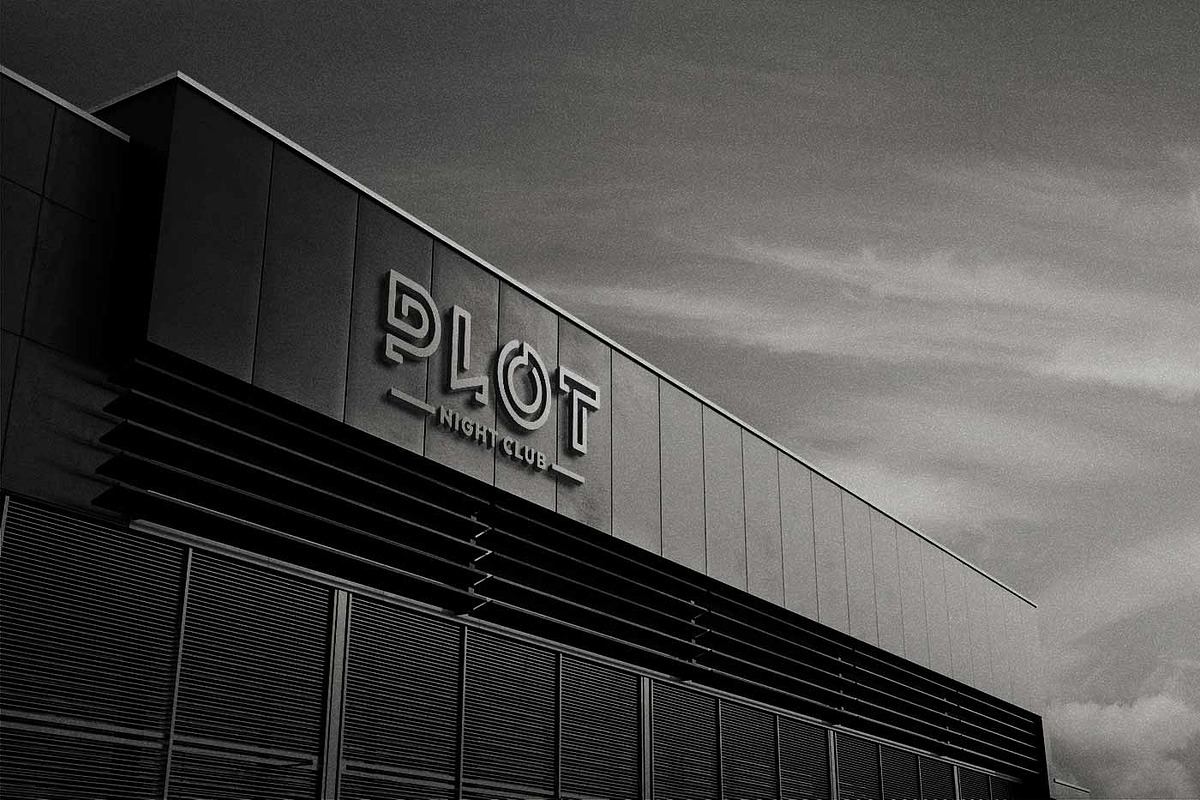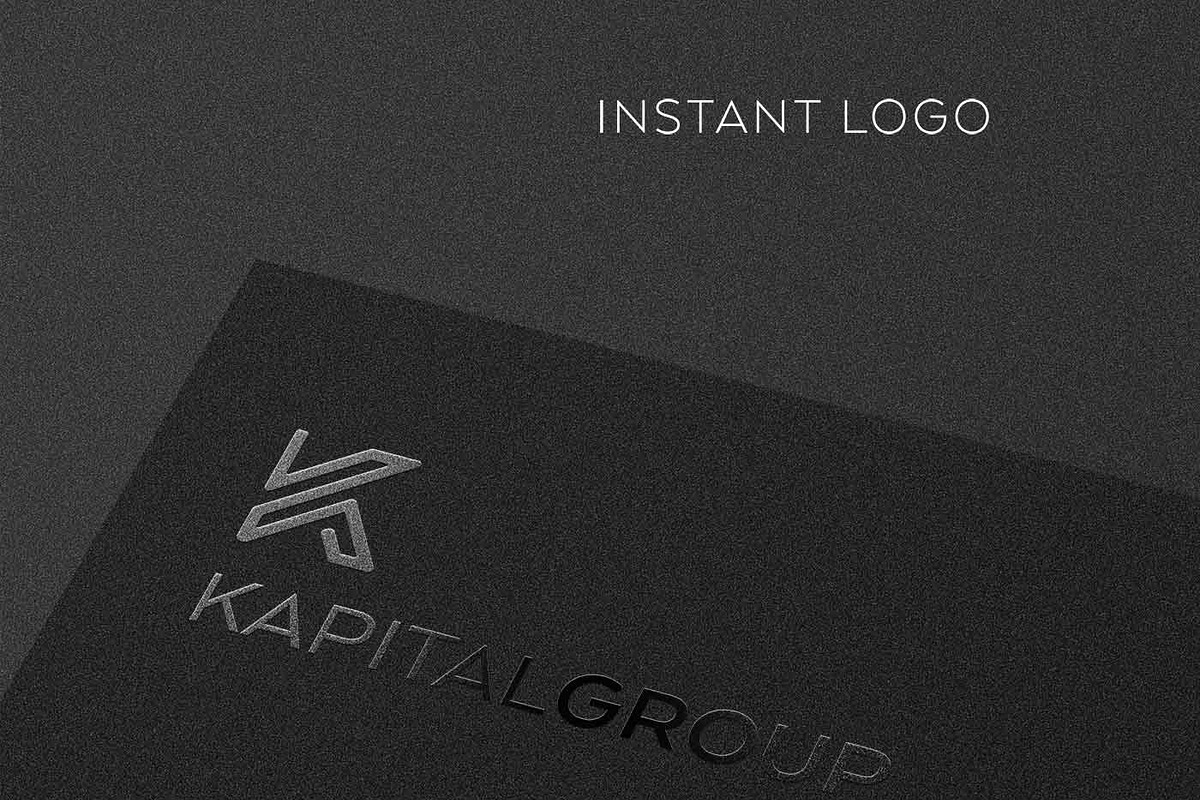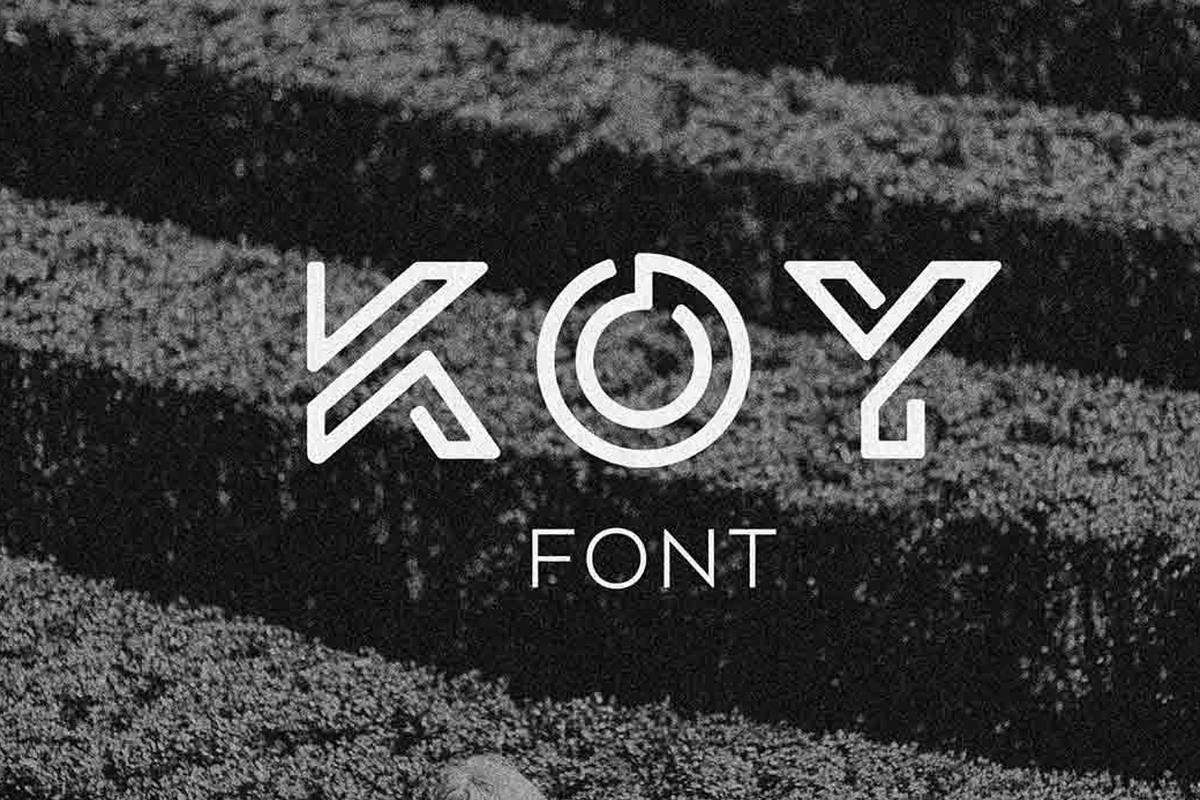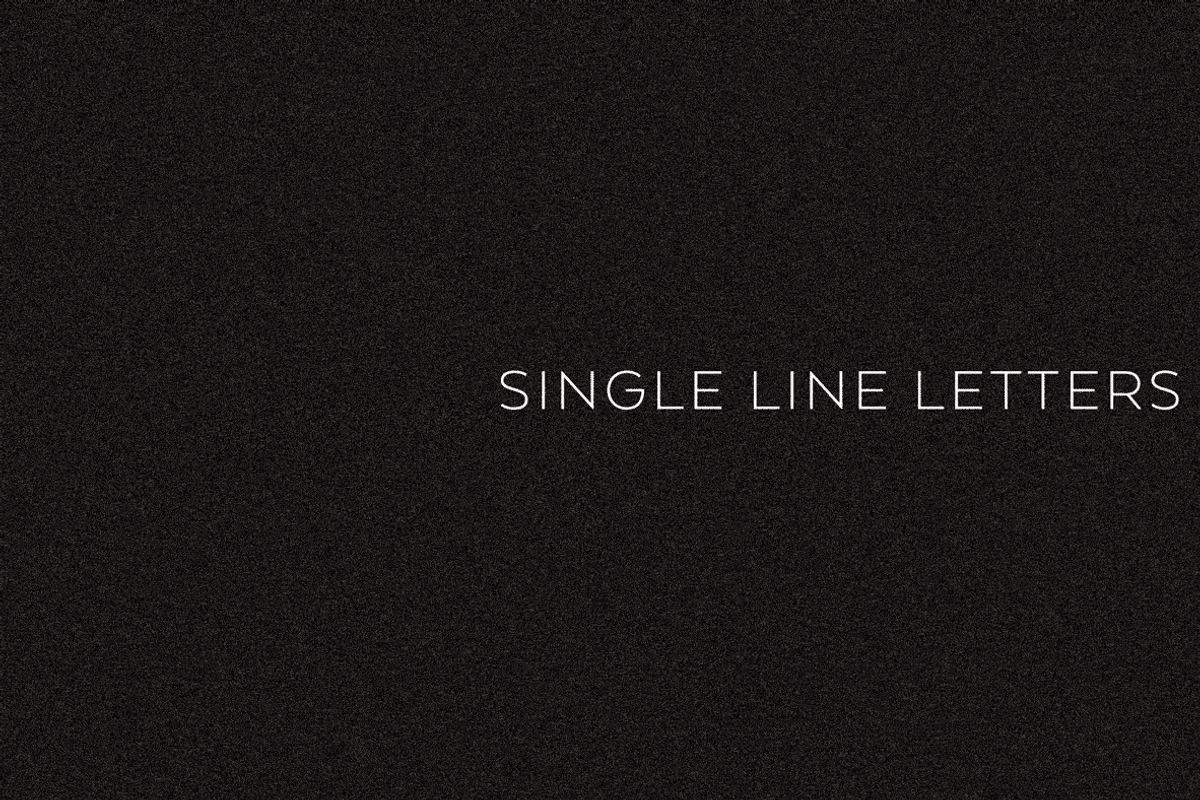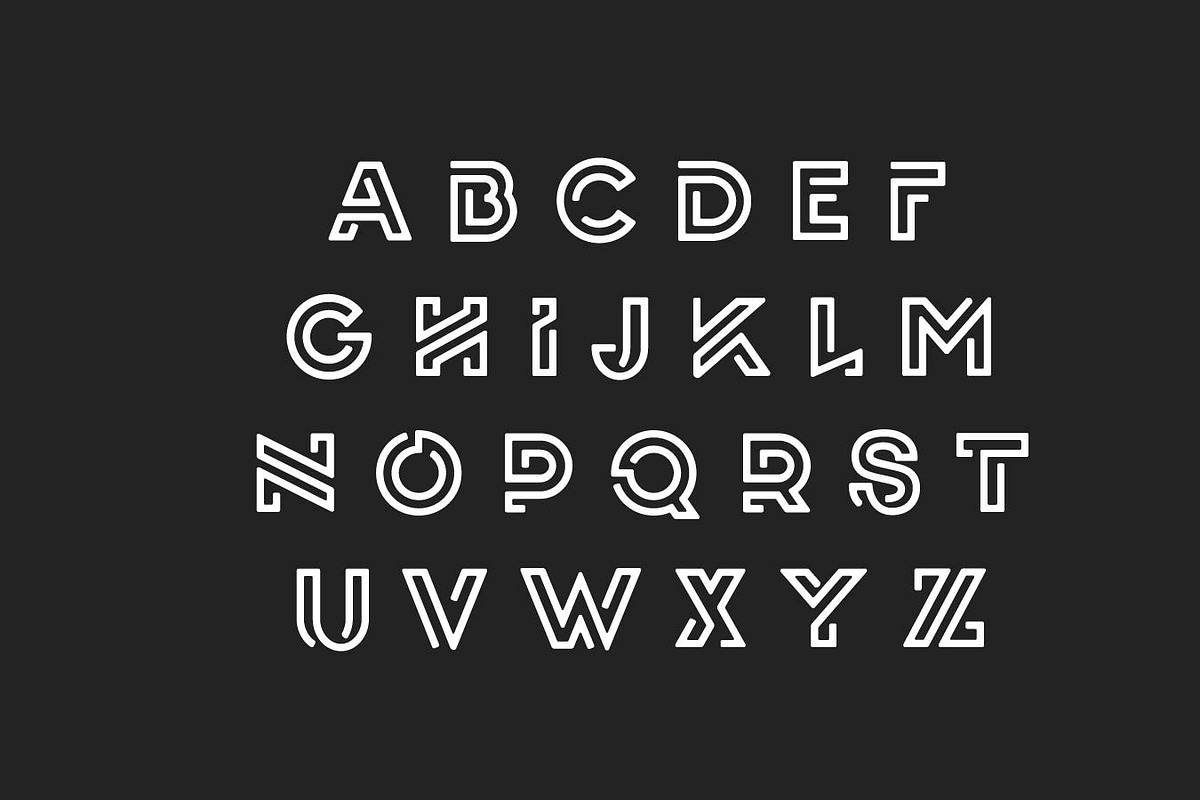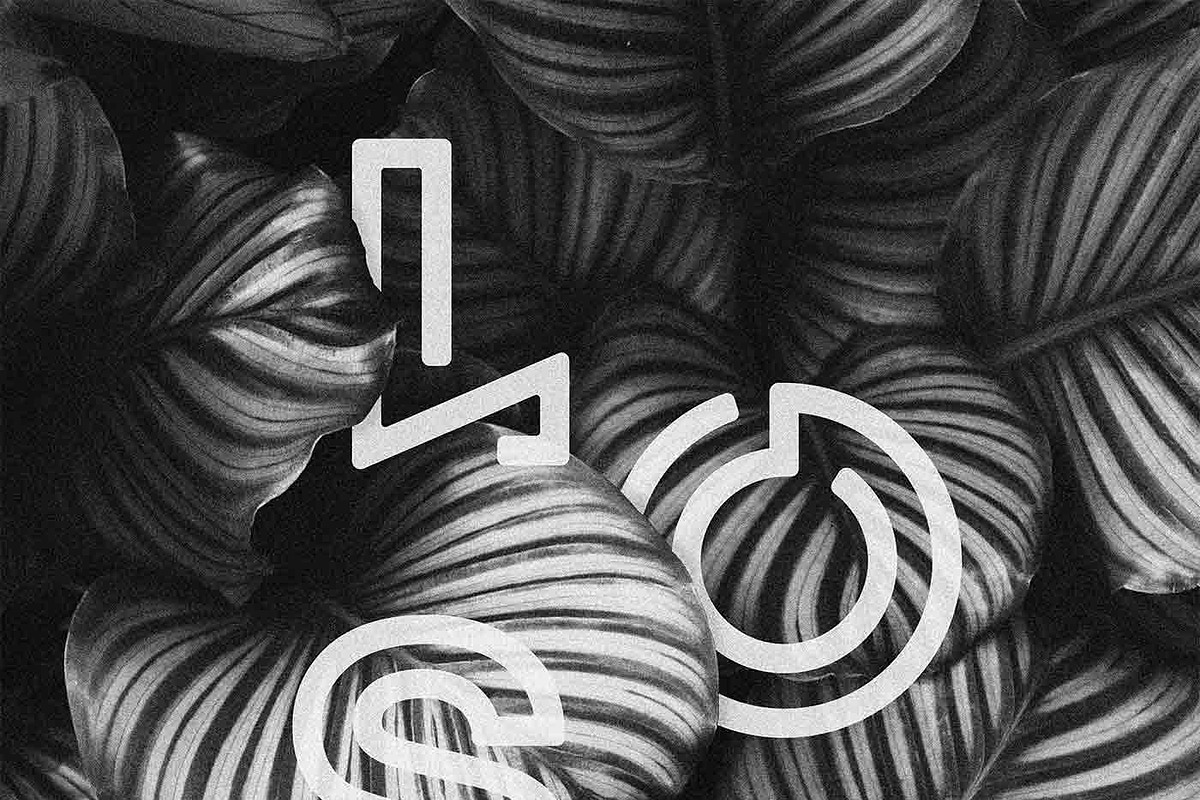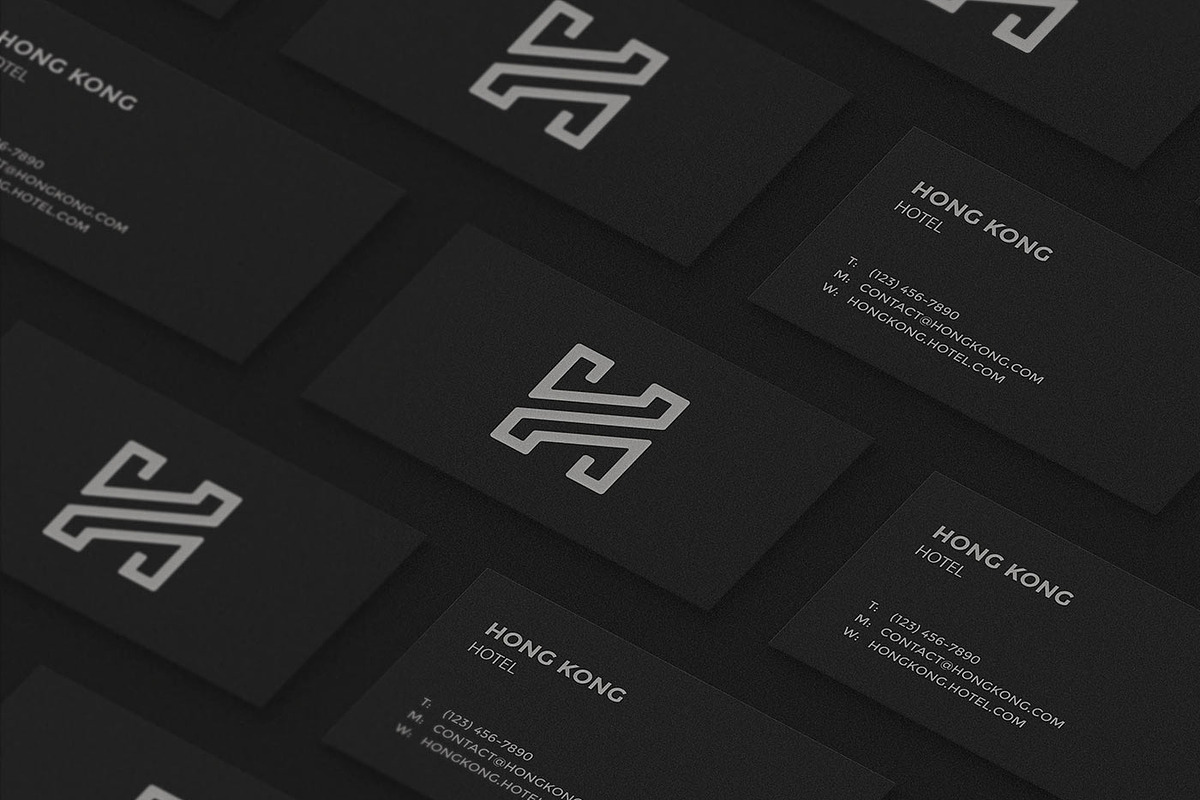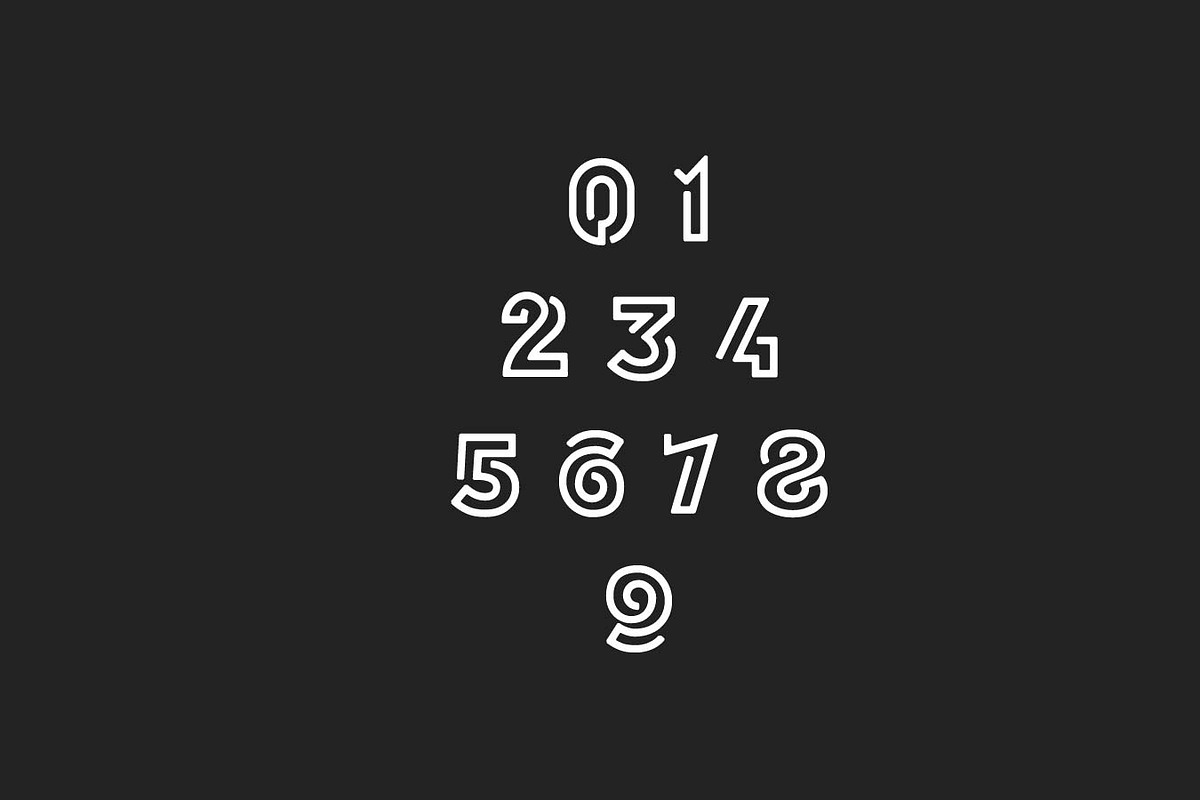
KOY Font
Single line font. Ideal for logos and poster design. Graphic and modern typeface.
KOY Font by Pedro Azedo fits naturally into Branding, posters, packaging, typography.